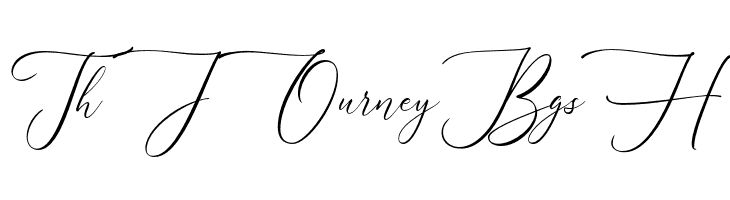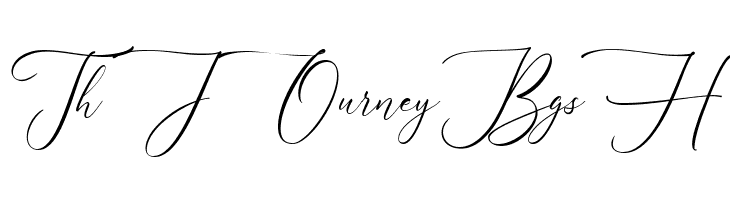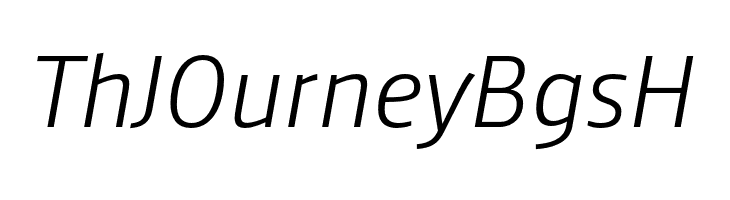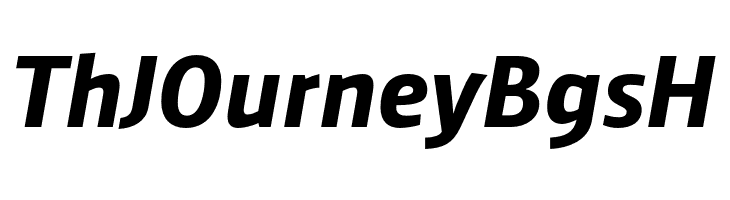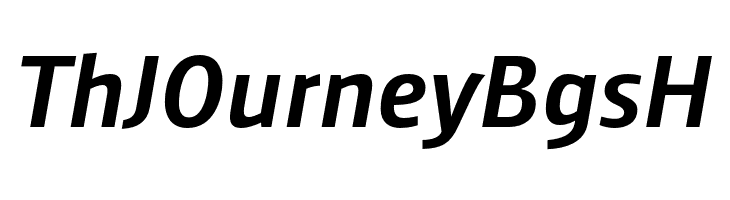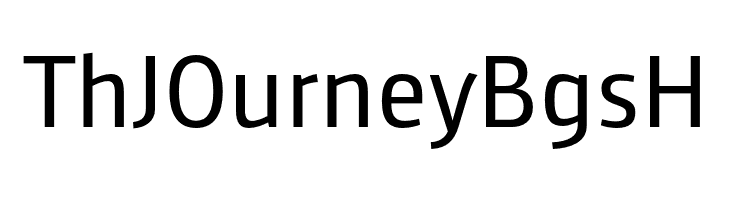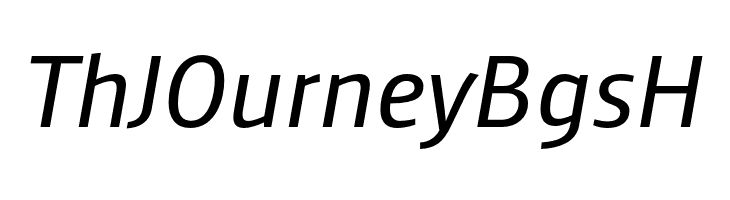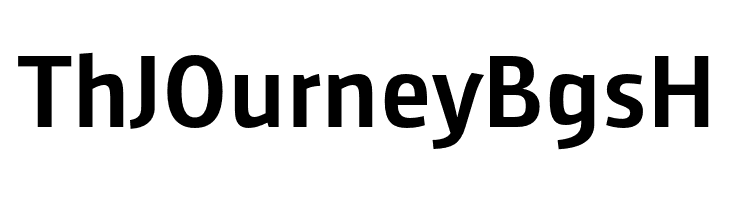
A modern, light, italic sans-serif font with a sleek and streamlined appearance.
A clean, modern sans-serif font with uniform stroke width and slightly condensed proportions.
A modern, italic sans-serif font with clean lines and balanced proportions.
A modern, clean sans-serif typeface with balanced stroke width and clear readability.
A modern sans-serif font with an italic slant and balanced proportions.
A graceful, handwritten script font with flowing, elegant strokes.
A graceful and elegant cursive script with medium contrast.
An elegant, high-contrast script font with flowing, cursive strokes.